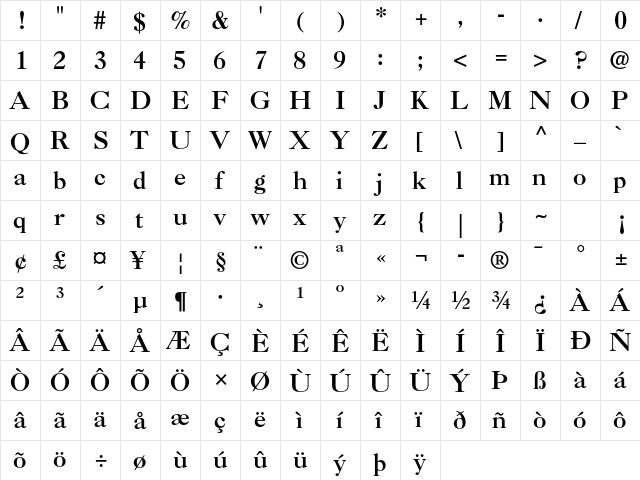
Caslon 3 LT Std Roman
| Designer | American Type Founders Staff |
Design Context for Caslon 3 LT Std Typeface
Caslon 3 LT Std offers clean, dependable letterforms without strong stylistic allegiance, making it a practical choice for designers who need flexibility. Its slender proportions lend an understated elegance to any composition.
Pro Tip: Pair Caslon 3 LT Std with a font of contrasting weight or personality to build a more expressive typographic hierarchy.